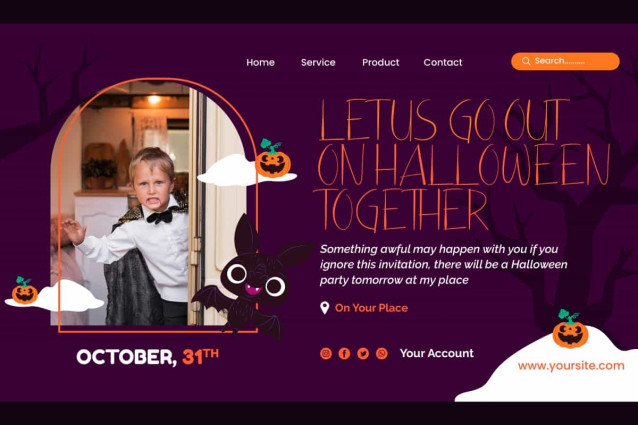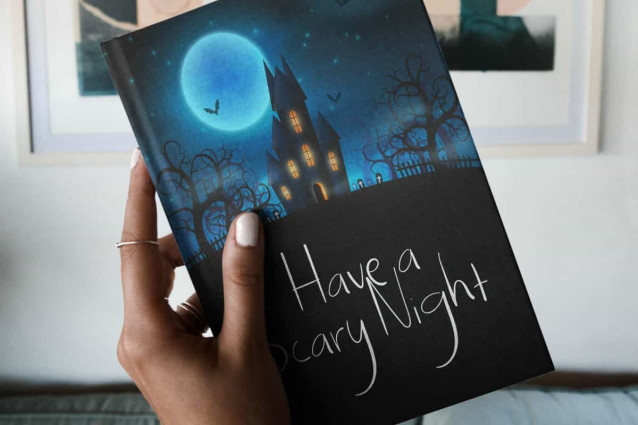
Not Fair Enough Font
Not Fair Enough Font is a horror display font with handwritten style. The line looks like it was made by a thin brush that has almost run out of paint. It would be good for your design, such as poster, brand image, invitation, label, menu, signage, stationery, website page, and more!
Not Fair Enough Font includes a full set of ALL CAPS for Uppercase and Lowercase Letters, Numerals, and large range of Punctuation. This horror font will be suitable for various industries, such as event or festival, fashion, game, movie, photography, printing, publishing, etc.